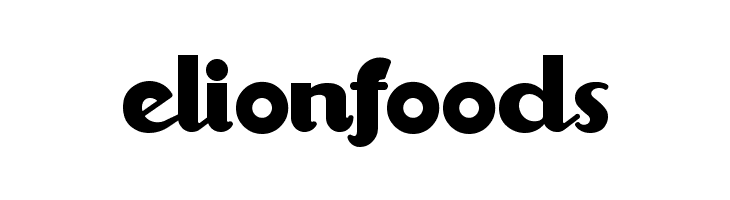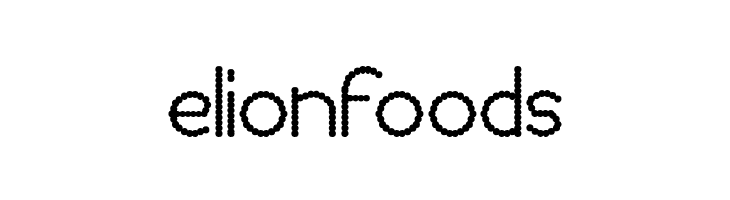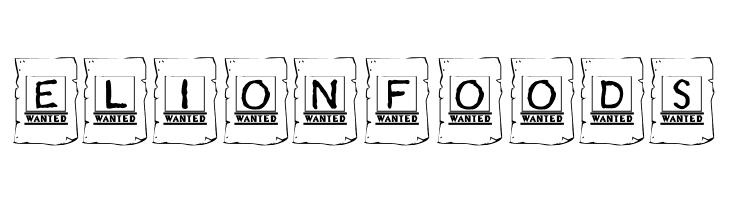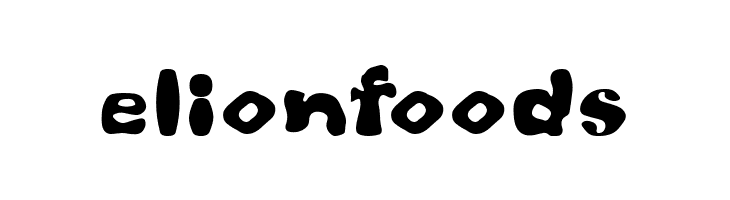
A bold, playful font with rounded edges and a cartoonish style.
A bold, playful font with thick, rounded strokes and whimsical curves.
A playful, star-patterned font with a pixelated, decorative style.
A playful, dotted font with a whimsical and textured appearance.
( Fonts by Mike Hind - Stick Fonts )
A bold, playful font with chunky, rounded letterforms and a whimsical style.
A playful, dotted font with interconnected circular characters.
( Fonts by Uddi Uddi )
A playful, bold font with a bubbly, hand-drawn style.
( Font by http://home.luna.nl/~xino/ )
A bold, jagged Halloween-themed decorative font with spooky icons.